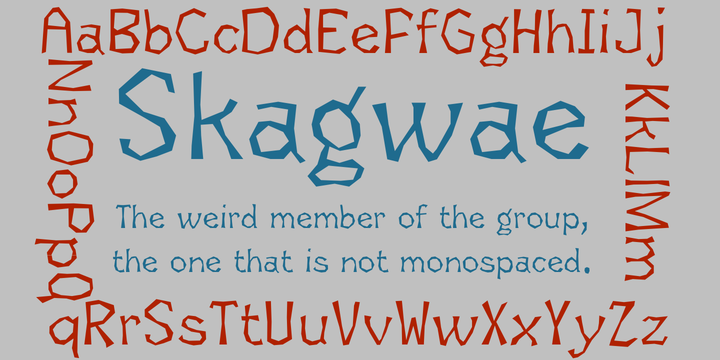
The characters of Skagwae have no curves, just straight line segments. The letter shapes themselves are fairly standard, but the choppy lines used to construct them give the font a crude, unfinished look. Skagwae-Mono is similar, but monospaced. Skigway is also monospaced, but the lines are jagged or squiggly.